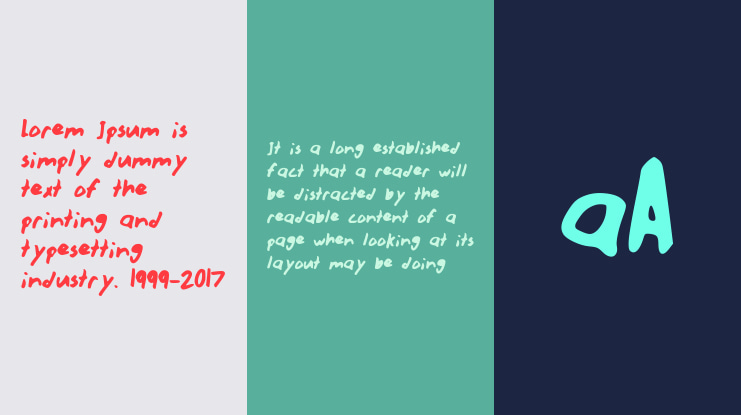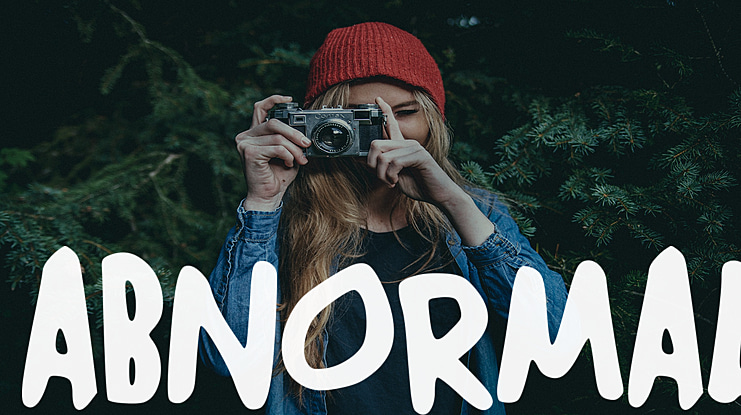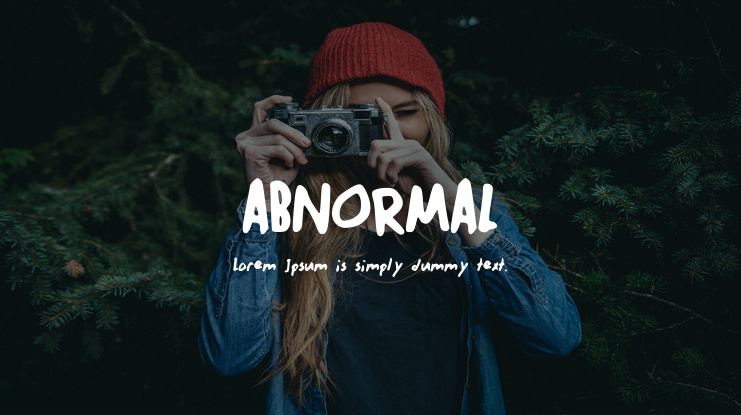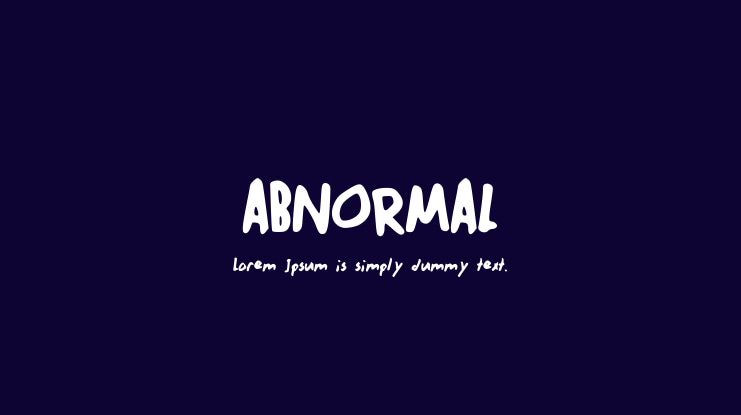
ABNORMAL Font
It's my handwriting in your hands. Well, computer screen I guess. Since I'm a fan of 100% free, this is free, and can be used whenever you like. Yes. Yes indeed. This font is designed for caps, and some characters maybe faulty ATOMICACID: http://atomicacid.blogspot.com/ DOWNLOAD FROM ATOMICACID: http://atomicacid.blogspot.com/2014/05/abnormal-font.html